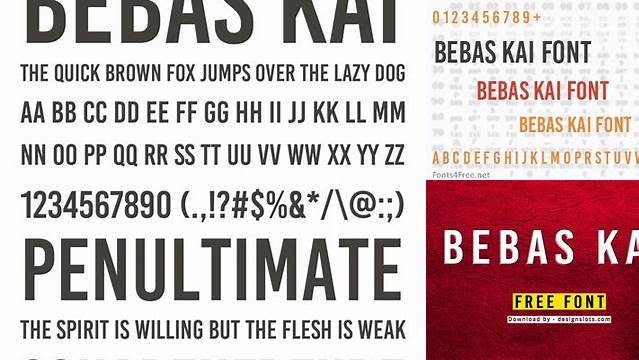
Hey guys! Are you on the hunt for a sleek, modern font that can add a touch of sophistication to your designs? Look no further! Bebas Kai might just be the perfect font for you. In this comprehensive guide, we’ll dive deep into everything you need to know about Bebas Kai normal font, including where to find it for a free download, its unique characteristics, its best use cases, and even a bit about its history. We'll also talk about similar fonts and troubleshooting any download or installation issues you might encounter. So, let’s get started and explore the world of Bebas Kai!
What is Bebas Kai?
Bebas Kai is a fantastic, free sans-serif font known for its clean lines and tall, narrow characters. It exudes a contemporary and minimalist vibe, making it a popular choice for various design projects. Think logos, headings, posters, and even web design. What makes Bebas Kai so appealing is its versatility and readability. It’s not just another font; it’s a statement. The font's design is intentionally clean and straightforward, ensuring that it remains legible across different media and sizes. This is particularly important in digital design, where fonts need to render well on screens of varying resolutions. The absence of serifs gives it a modern edge, making it suitable for designs that aim to convey a sense of innovation and simplicity. Moreover, Bebas Kai strikes a balance between being attention-grabbing and unobtrusive. It can stand out when used for titles and headings, yet it doesn't overpower the rest of the design elements. This equilibrium is crucial in creating visually harmonious compositions. For designers aiming to add a touch of modernity without sacrificing readability, Bebas Kai offers an ideal solution. Its consistent character width and spacing contribute to a uniform appearance, enhancing the overall professional look of any project. Whether you're designing a website, crafting a poster, or creating a logo, Bebas Kai can help you achieve a polished and contemporary aesthetic. Its open-source nature means that it is freely available for both personal and commercial use, making it an accessible option for designers on any budget.
Characteristics of Bebas Kai
Bebas Kai boasts several distinct characteristics that make it stand out in the world of typography. Understanding these features will help you appreciate its design and make informed decisions about when and how to use it effectively. Let's break down some of the key attributes of this fantastic font.
Clean and Modern Design
At its core, Bebas Kai is a modern sans-serif font. This means it lacks the small decorative strokes, or serifs, found in traditional fonts like Times New Roman. The absence of serifs gives Bebas Kai a clean and uncluttered appearance, making it feel contemporary and sleek. This minimalist design is particularly well-suited for projects that aim to convey a sense of simplicity and sophistication. The clean lines and geometric shapes contribute to its overall legibility, even in smaller sizes. This is crucial for ensuring that your message is clear and easily understood by your audience. Whether you're designing a website, a logo, or a marketing campaign, the clean aesthetic of Bebas Kai can help you create a polished and professional look.
Tall and Narrow Proportions
One of the defining features of Bebas Kai is its tall and narrow letterforms. This condensed design allows you to fit more text into a limited space, making it an excellent choice for headlines, posters, and other applications where space is at a premium. The elongated characters give the font a distinctive vertical emphasis, which can help draw the eye and create a strong visual impact. This narrowness, however, does not compromise its readability. The letters are carefully crafted to maintain clarity and distinction, ensuring that your message remains easily legible. This unique combination of tall and narrow proportions makes Bebas Kai a versatile option for various design scenarios, from print layouts to digital interfaces.